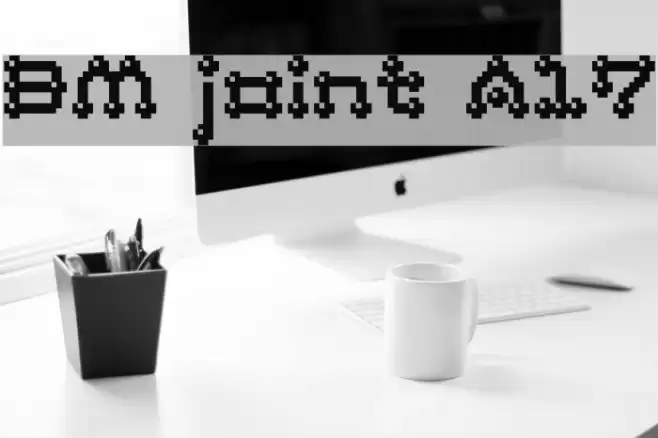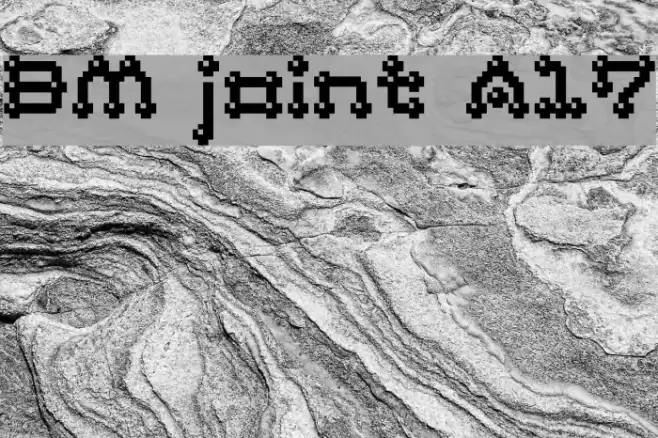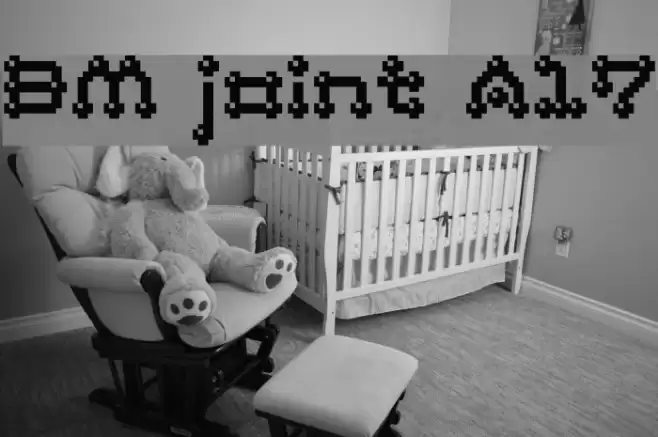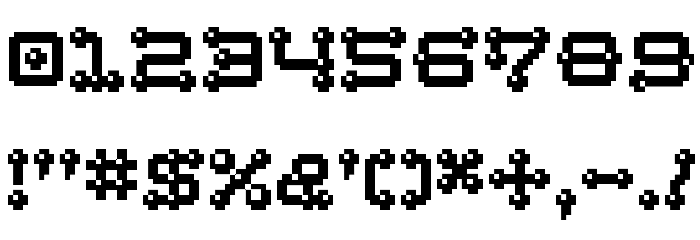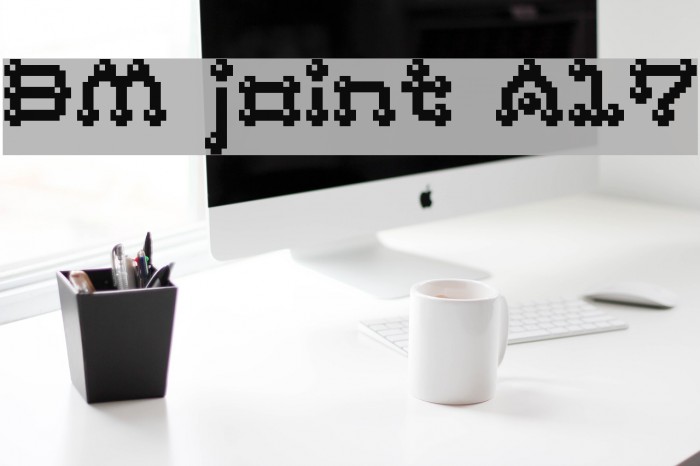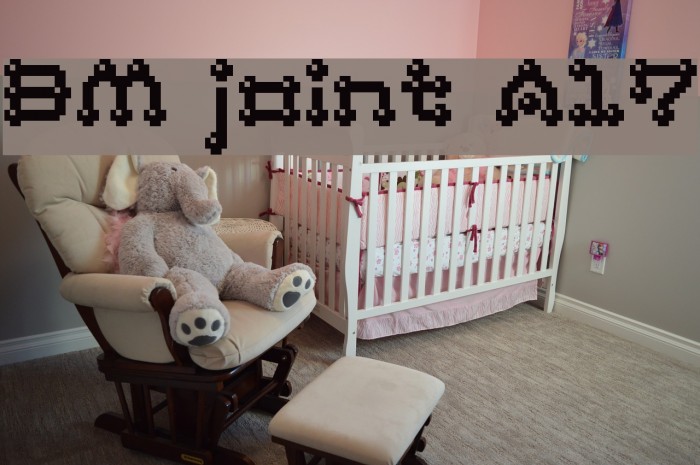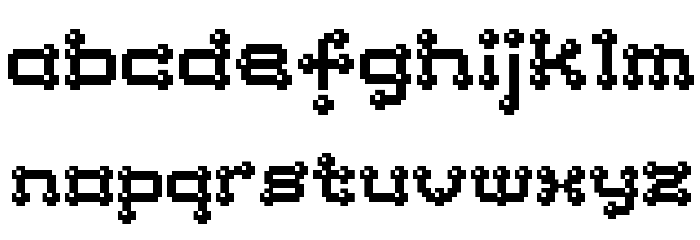
BM joint A17 Font
BM joint A17 Description
This font features a distinct pixelated style, reminiscent of early digital displays and retro video games. Each character is composed of small square blocks, giving it a chunky and geometric appearance. The uniformity in the pixel size across all characters creates a cohesive look, while the spacing between characters is consistent, ensuring readability. The font includes a full set of uppercase and lowercase letters, numbers, and a variety of special characters, making it versatile for different uses. Its unique style is both nostalgic and modern, appealing to those looking for a vintage digital aesthetic.
A pixelated, retro-style font with a geometric and digital appearance from Uncategorized fonts.
- Proposed Projects: Ideal for video game design, digital art projects, retro-themed posters, and any creative work that requires a vintage digital look.
- Overall Style: Vintage
- Use Case: Headlines, Logos, Digital Art